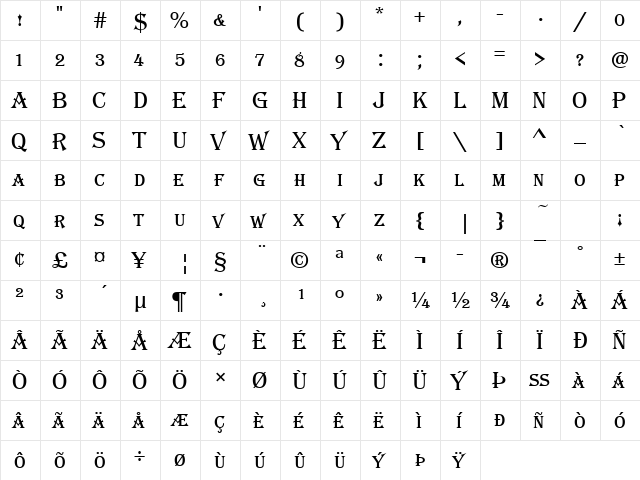
Algerian Becker Basic Caps Regular
Design Context for Algerian Becker Basic Caps Typeface
Algerian Becker Basic Caps offers clean, dependable letterforms without strong stylistic allegiance, making it a practical choice for designers who need flexibility.
Pro Tip: Use Algerian Becker Basic Caps in both headline and body roles to test its range before committing to a single application.